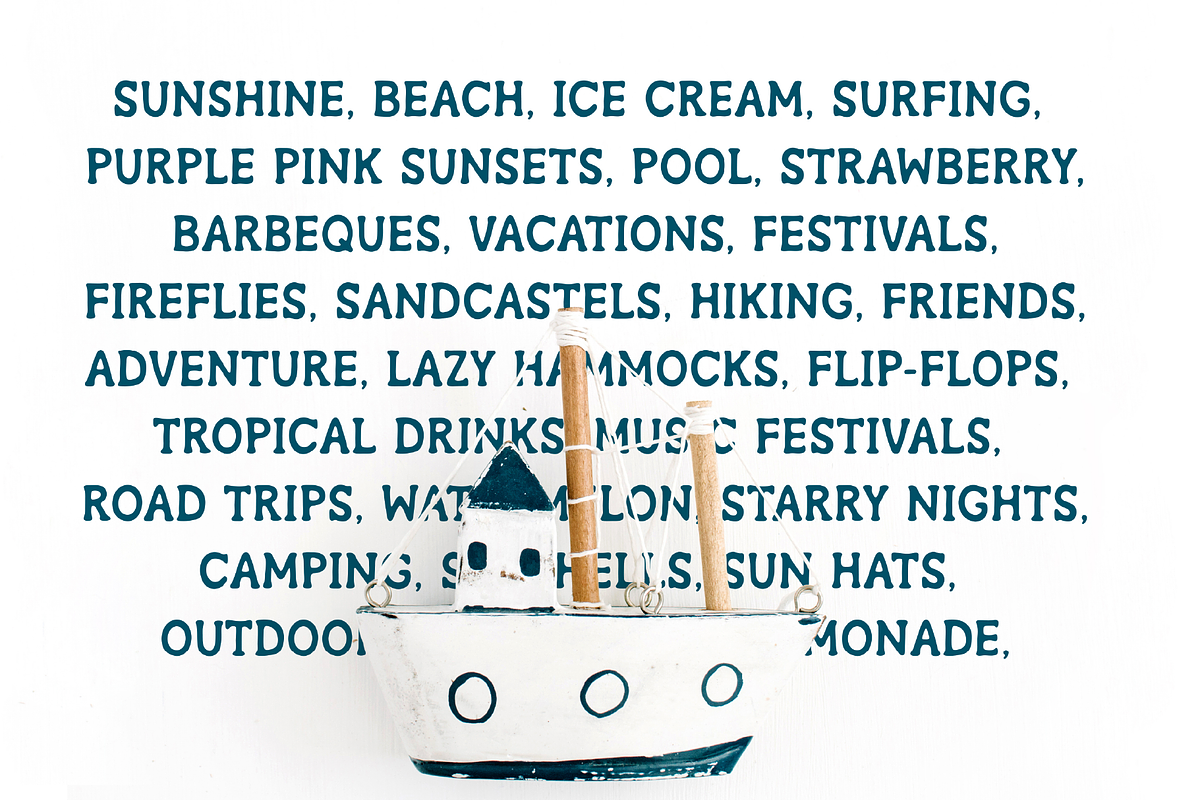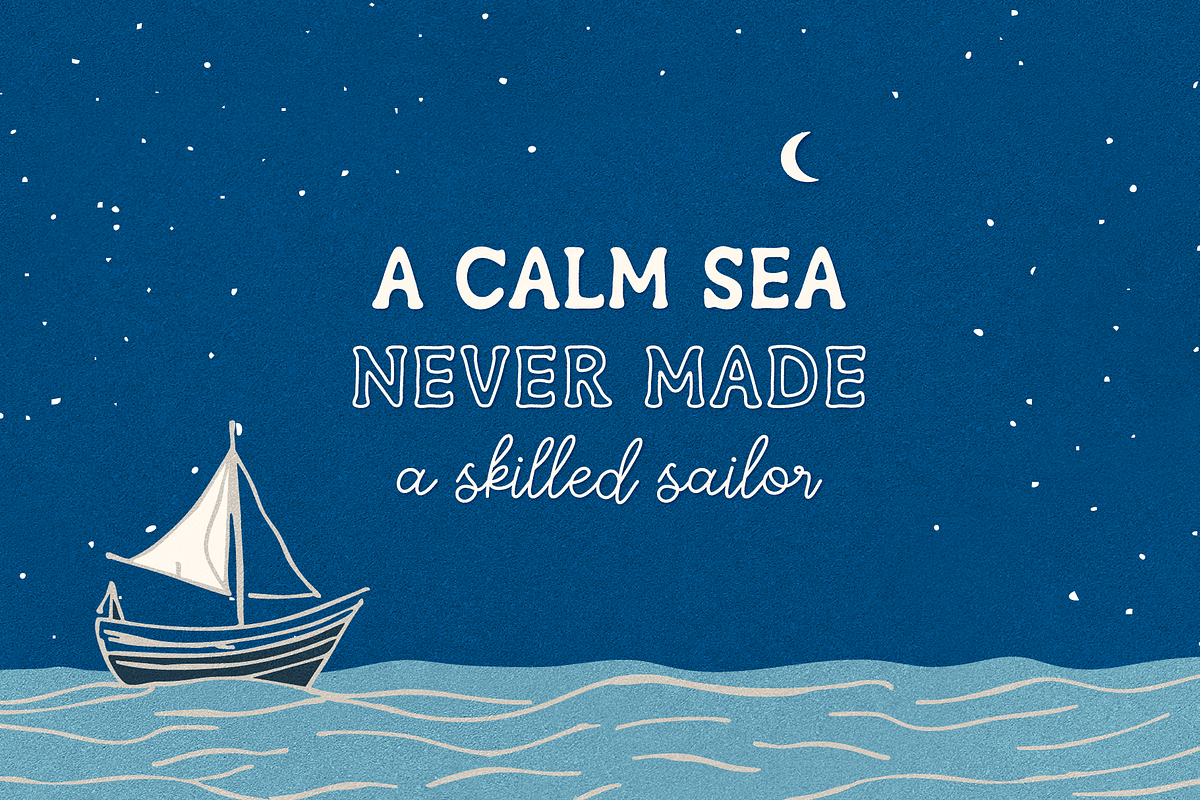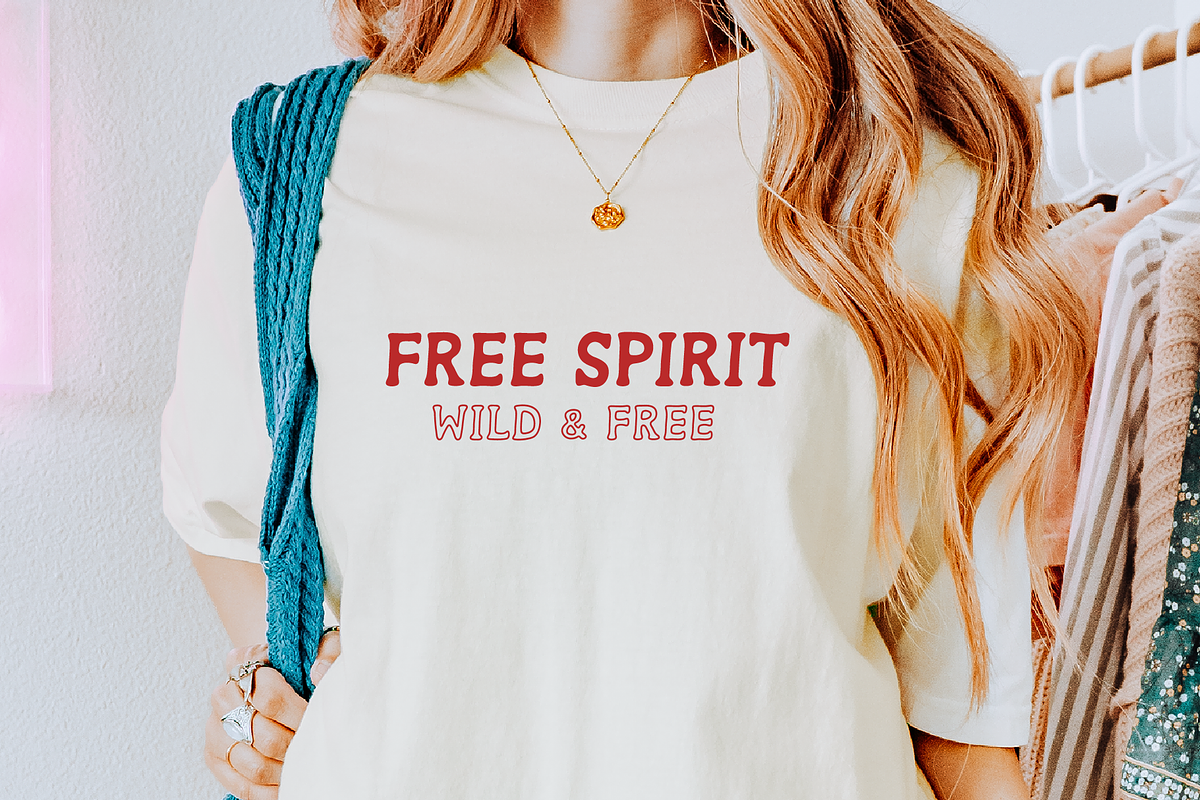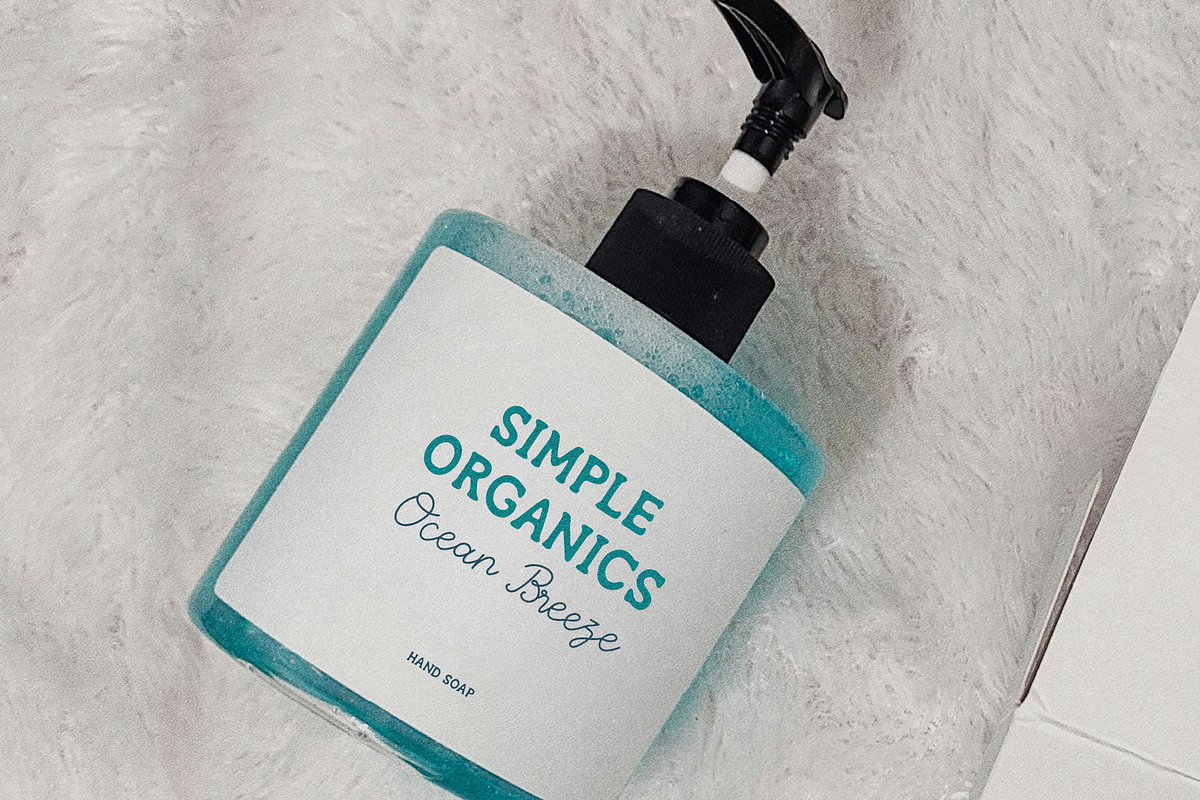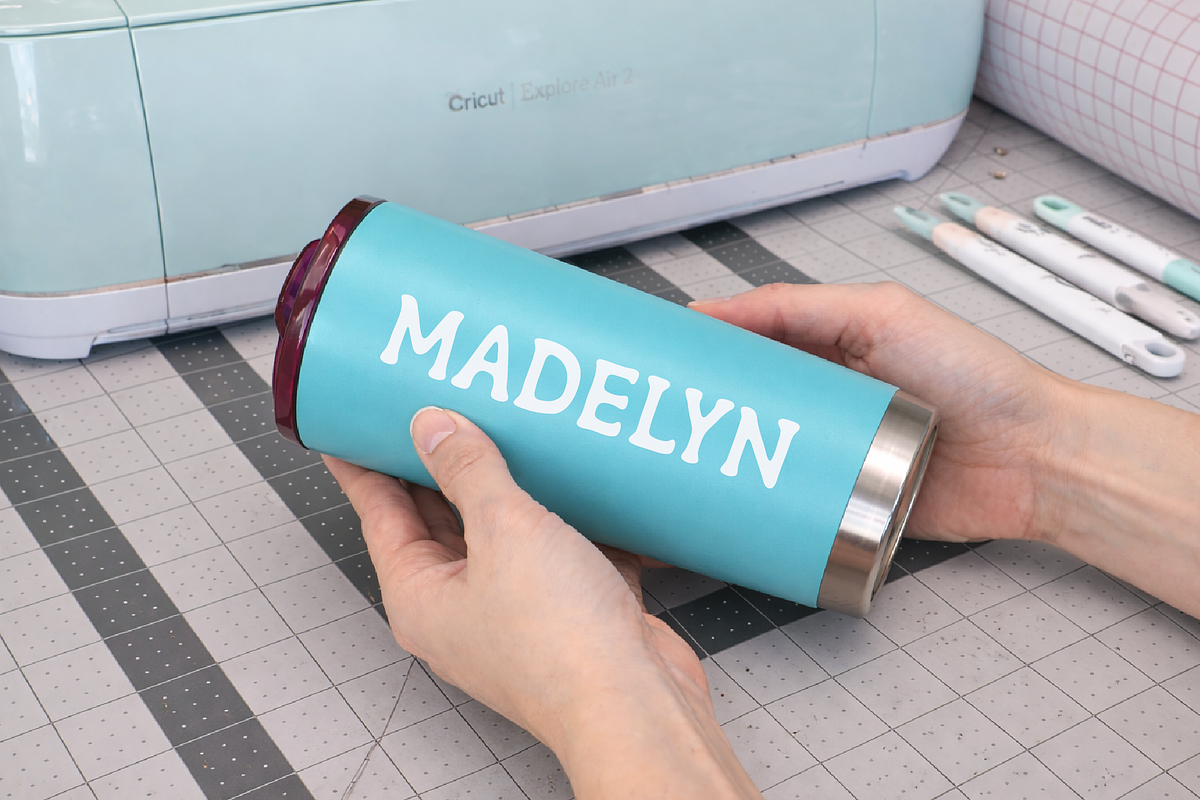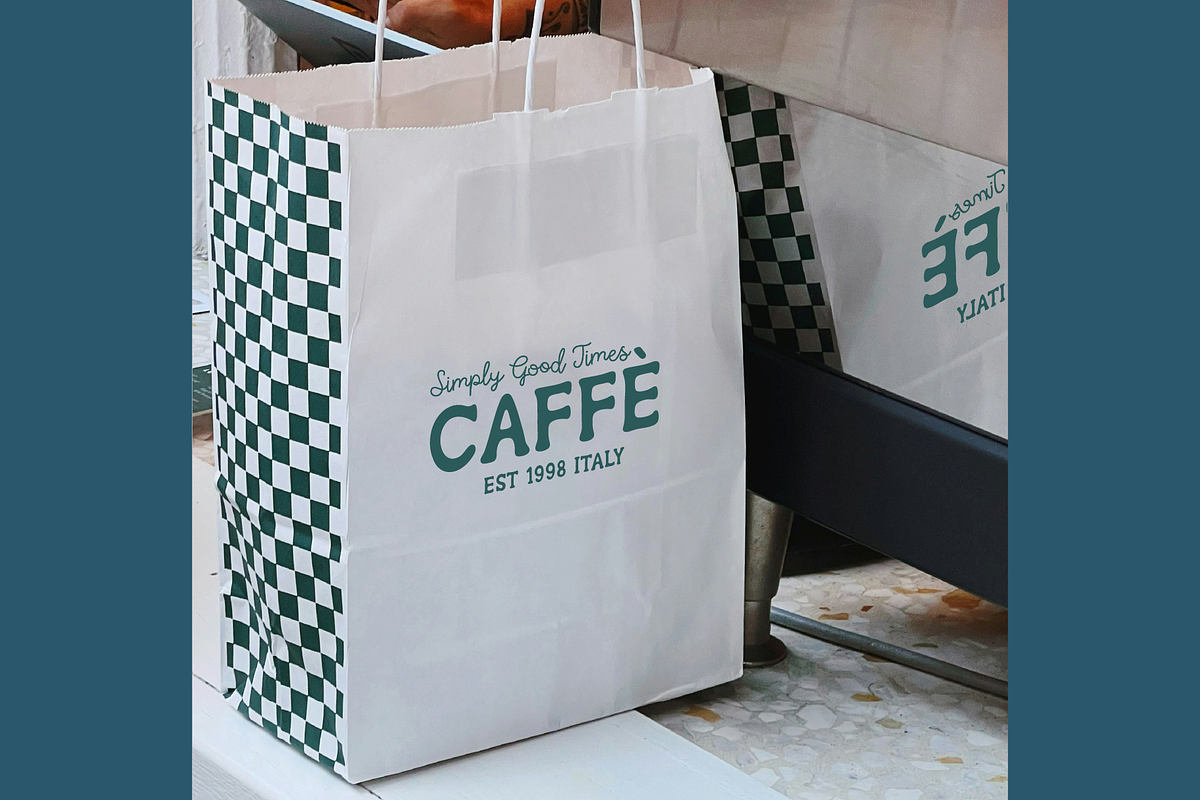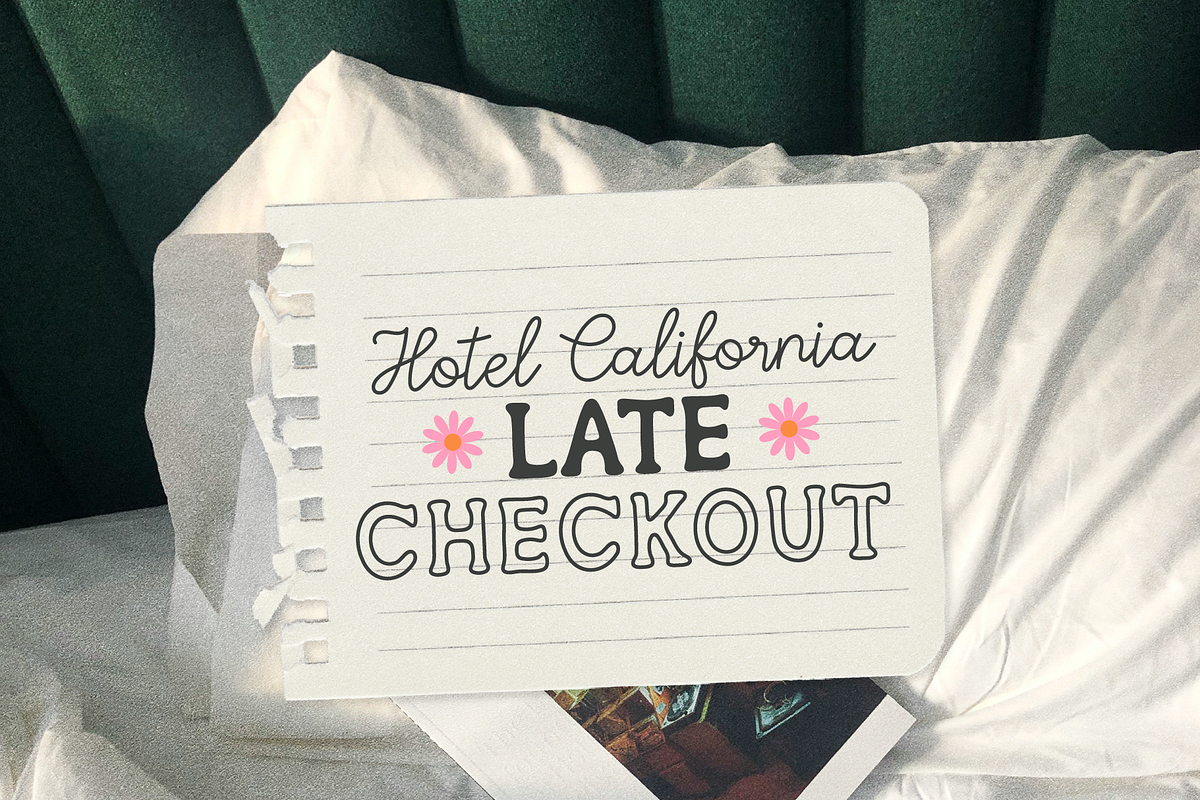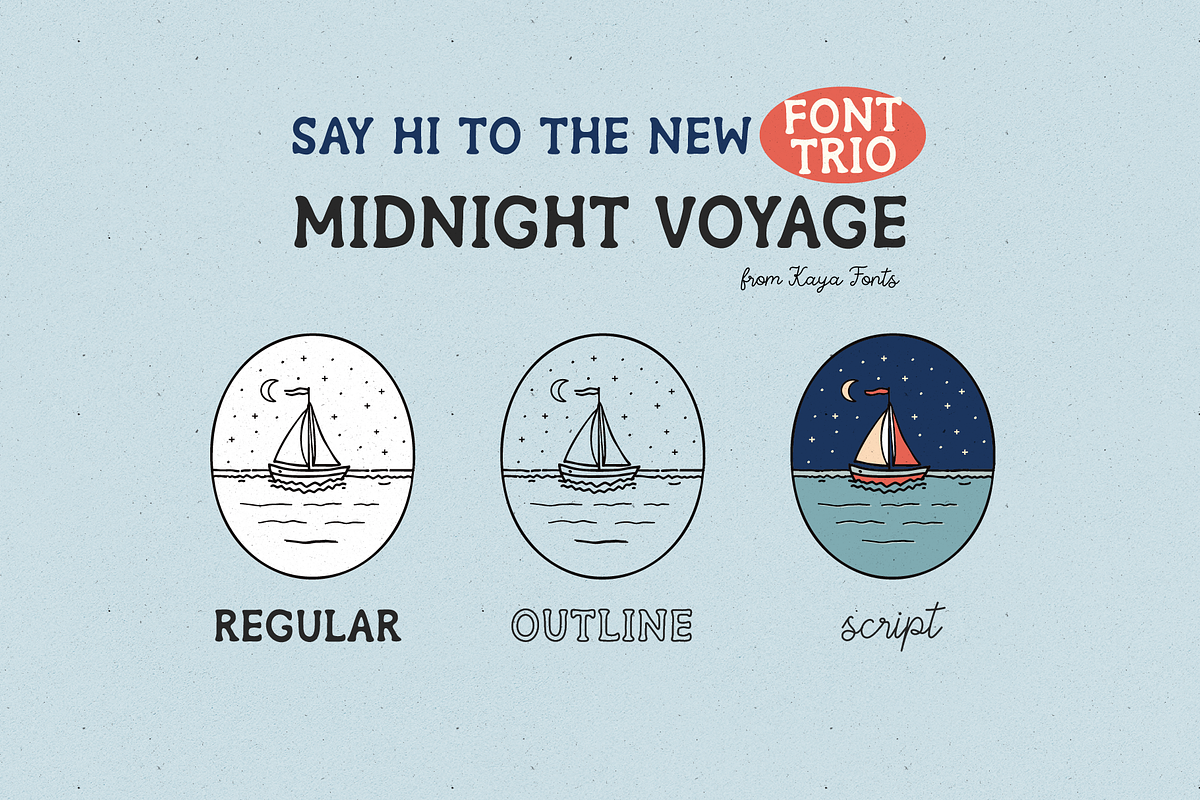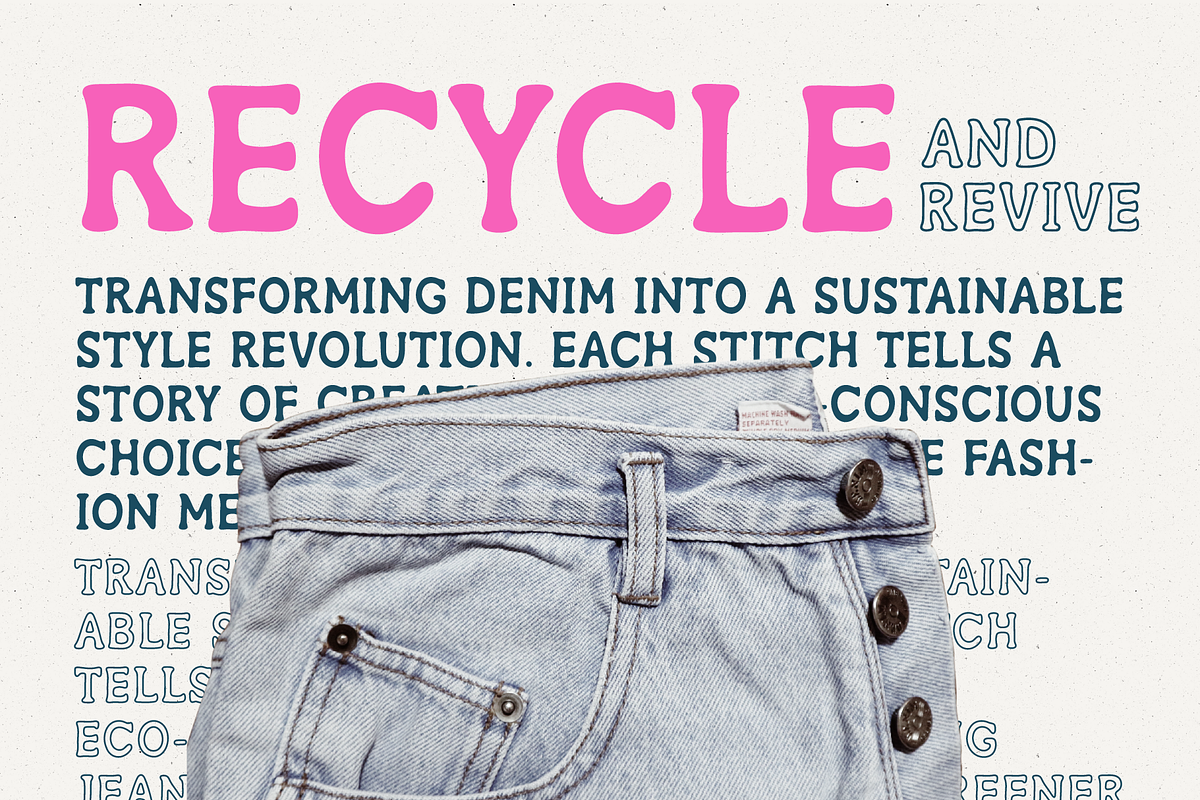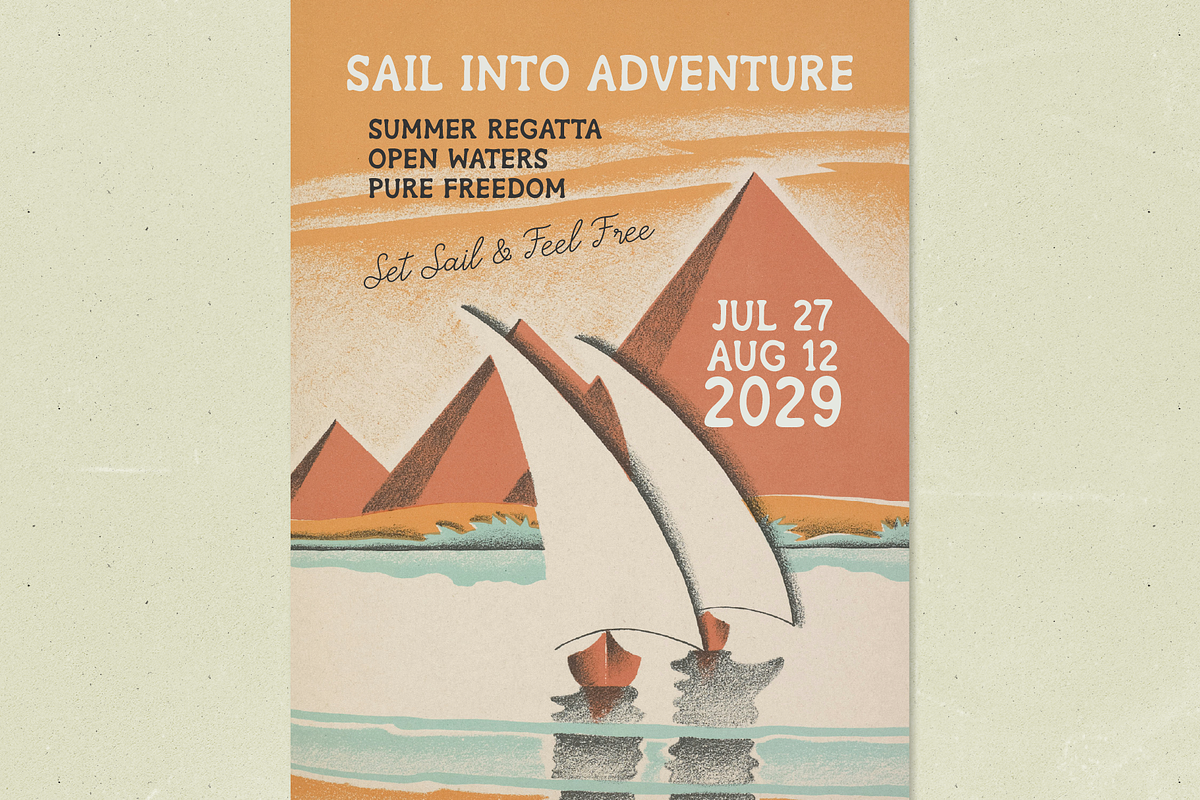
Midnight Voyage Font Trio
Midnight Voyage is an adventurous, hand-drawn font trio inspired by moonlit sails, calm seas, and nostalgic summer postcards. With a bold, friendly display style, a playful outline version for easy layering, and a sweet handwritten script for accents, Midnight Voyage is made to bring instant charm to your designs.
What’s Included Midnight Voyage Regular (bold hand-drawn display) Midnight Voyage Outline (perfect for layering, stickers & headline effects) Midnight Voyage Script (cute handwritten accent)
Perfect For Branding & logos, posters, café menus, packaging, quotes, greeting cards, postcards, kids designs, t-shirts, social media graphics, retro labels, coastal and travel themes.